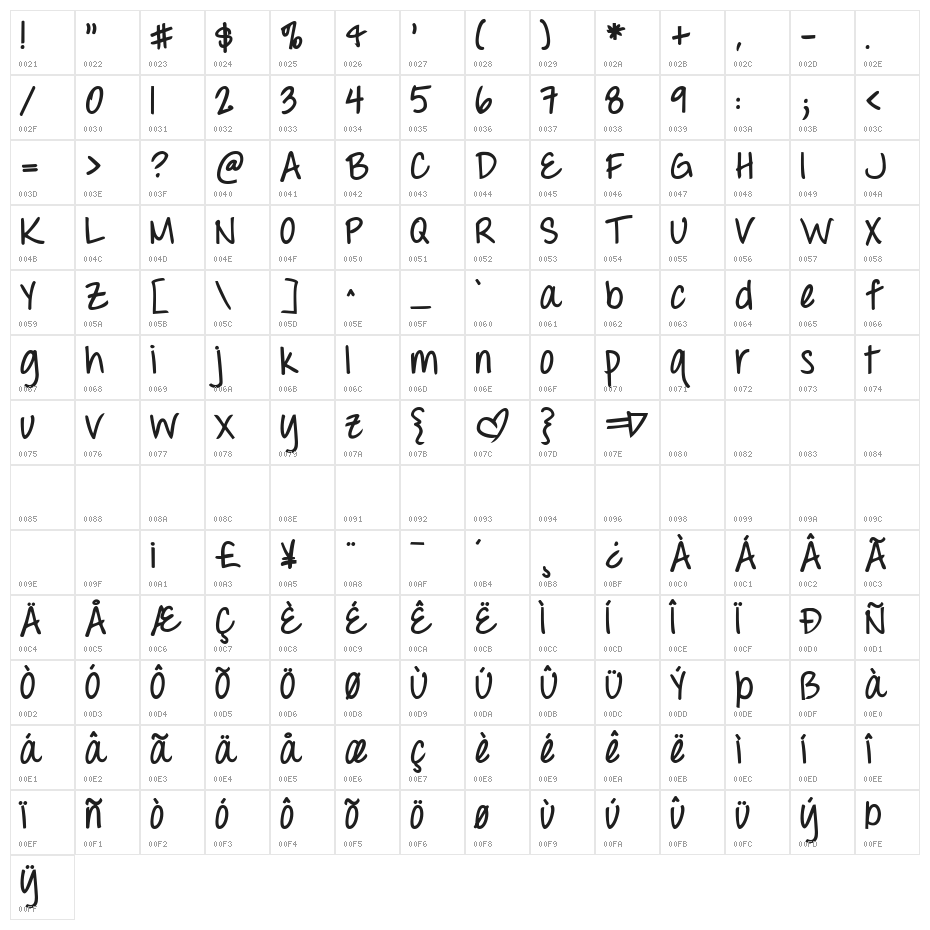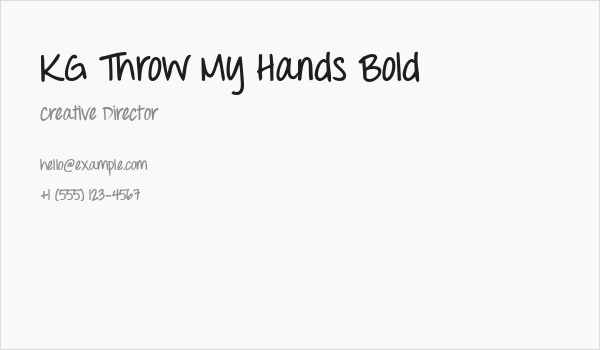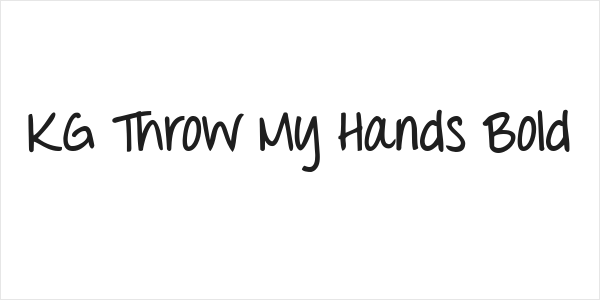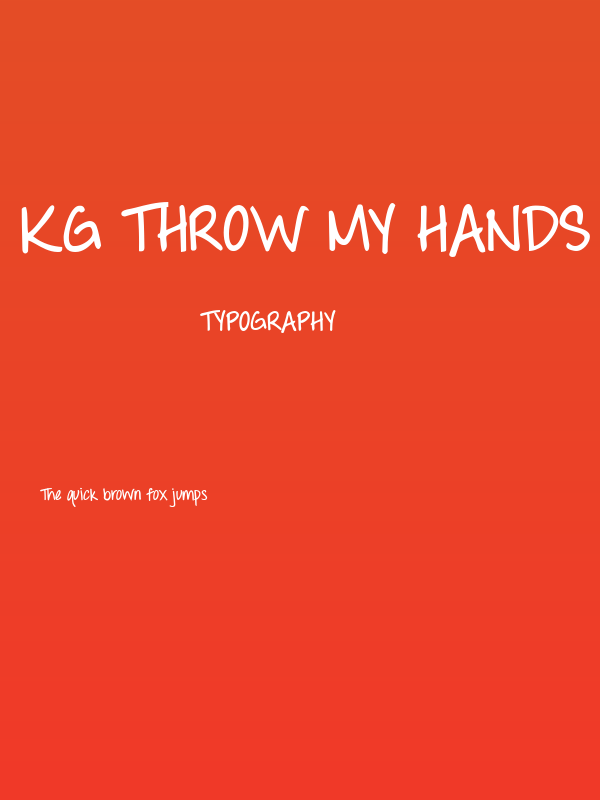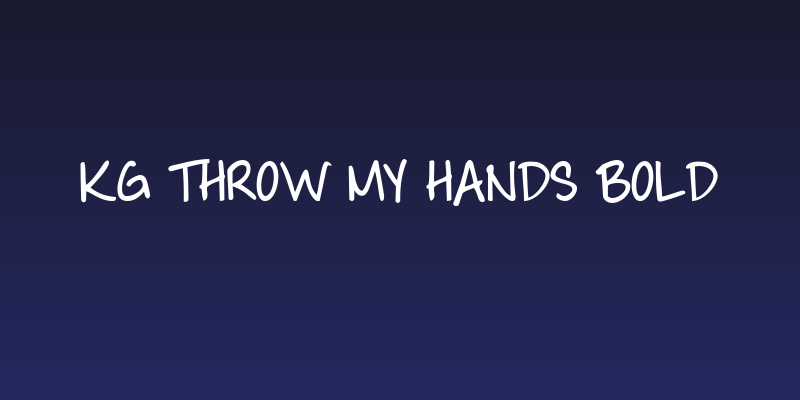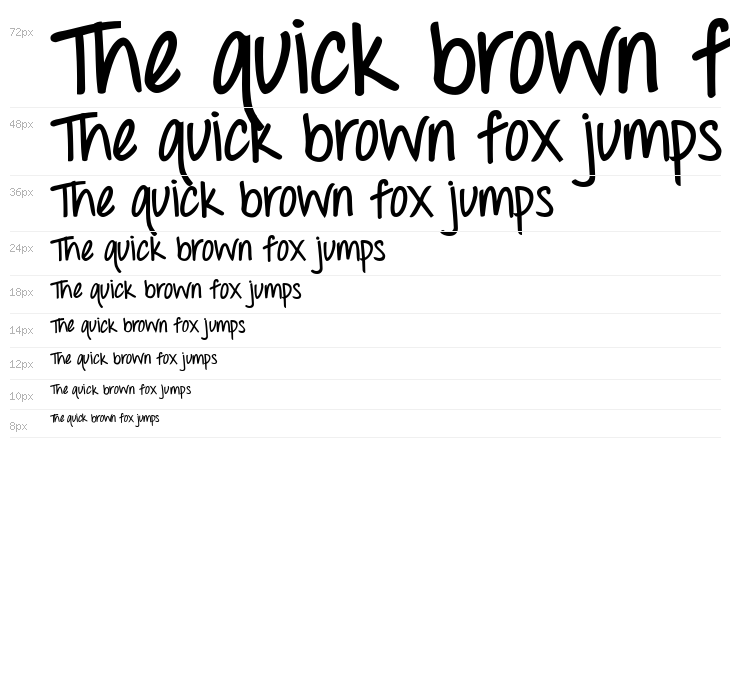
KG Throw My Hands Bold Font
KG Throw My Hands Bold Description
This font features a playful and energetic handwritten style, characterized by its bold and rounded letterforms. The strokes are consistent in thickness, giving it a uniform appearance that enhances readability. The letters are slightly slanted, adding a dynamic and informal touch. This font exudes a casual and friendly vibe, making it suitable for projects that require a personal and approachable feel. The spacing between characters is balanced, ensuring clarity and legibility even at smaller sizes. Its distinctive style makes it ideal for creative and expressive designs.
| Proposed Projects | Ideal for greeting cards, children's books, playful branding, and social media graphics. |